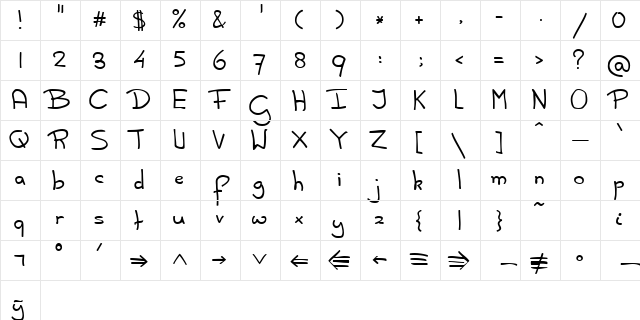
Dijkstra Regular
Design Context for Dijkstra
Dijkstra is a composed and adaptable typeface that performs quietly and consistently across a wide range of design contexts.